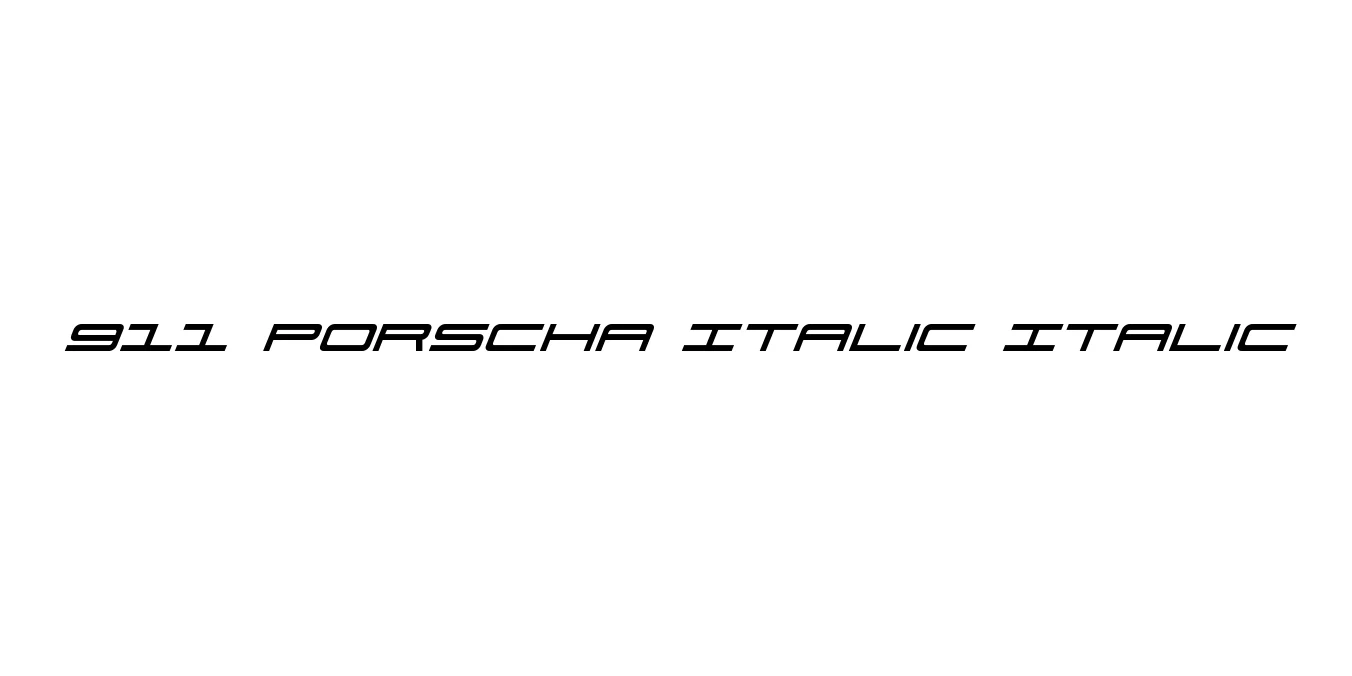
911 Porscha Italic Italic
Designed by Iconian Fonts (Dan Zadorozny)
| Category | Techno / Wide / Display |
| Designer | Iconian Fonts (Dan Zadorozny) |
911 Porscha Italic is a standout typeface within the automotive-inspired 911 Porscha family, designed by the prolific Dan Zadorozny of Iconian Fonts. The font is a direct homage to the sleek, high-speed typography used in the branding of luxury sports cars, specifically mirroring the iconic Porsche aesthetic. It features an expanded horizontal structure combined with a sharp italic slant, effectively communicating a sense of velocity, precision, and modern engineering.
As a Techno Display font, it excels in environments where impact and readability in wide formats are essential. The design incorporates clean lines and geometric shapes that feel both industrial and futuristic. Over the years, it has become a staple for designers looking to replicate a professional racing or high-tech appearance, making it one of the most recognizable free automotive fonts available on the web today.
911 Porscha Italic Italic Best Uses
Ideal for car club logos, racing team identities, and professional vehicle decals.
Perfect for speedometers, menu titles, and heads-up displays in racing simulators and sci-fi games.
A great choice for high-impact headlines in motorsports event posters and techno music flyers.
Frequently used for printing on custom racing jerseys, streetwear, and automotive merch.